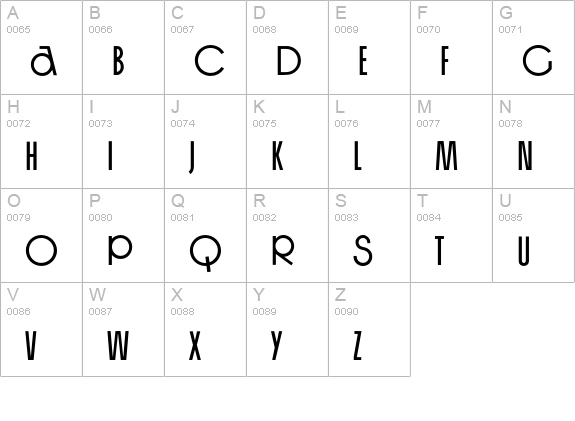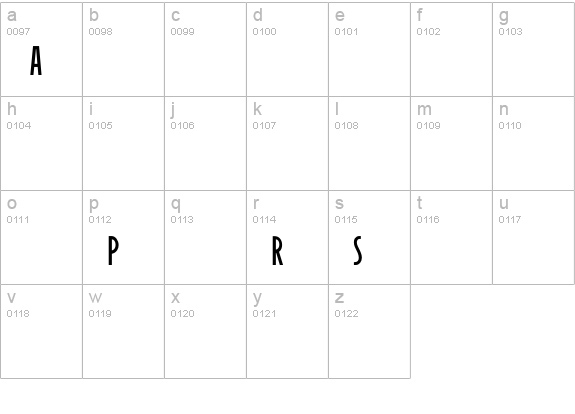
Handicap Font Details
Handicap font is a unique and visually appealing typeface designed specifically to enhance accessibility for individuals with visual impairments. This font is carefully crafted with clear and distinct letterforms, making it easier for people with low vision or reading difficulties to read and comprehend written content. The Handicap font boasts a clean and simple design, with slightly larger letterforms and increased spacing between characters, allowing for improved legibility and readability. The rounded edges of each letter ensure a smooth and comfortable reading experience, reducing eye strain and making it easier to distinguish between different characters. This font is not only designed with accessibility in mind, but it is also available for free download at FontsMarket.com. This means that anyone can freely access and utilize Handicap font to enhance the readability of their written materials. Whether it be for personal use, educational purposes, or professional projects, this font offers a valuable tool to improve accessibility and inclusivity. By using the Handicap font, individuals with visual impairments can enjoy an enhanced reading experience, allowing them to effortlessly engage with written content. Additionally, this font can be utilized by designers, educators, and content creators who strive to make their work more accessible and inclusive to a wider audience. In conclusion, Handicap font is a visually appealing and accessible typeface that is freely available to download at FontsMarket.com. With its thoughtful design and larger letterforms, this font offers a valuable resource for individuals with visual impairments, as well as those seeking to promote accessibility and inclusivity in their written materials.